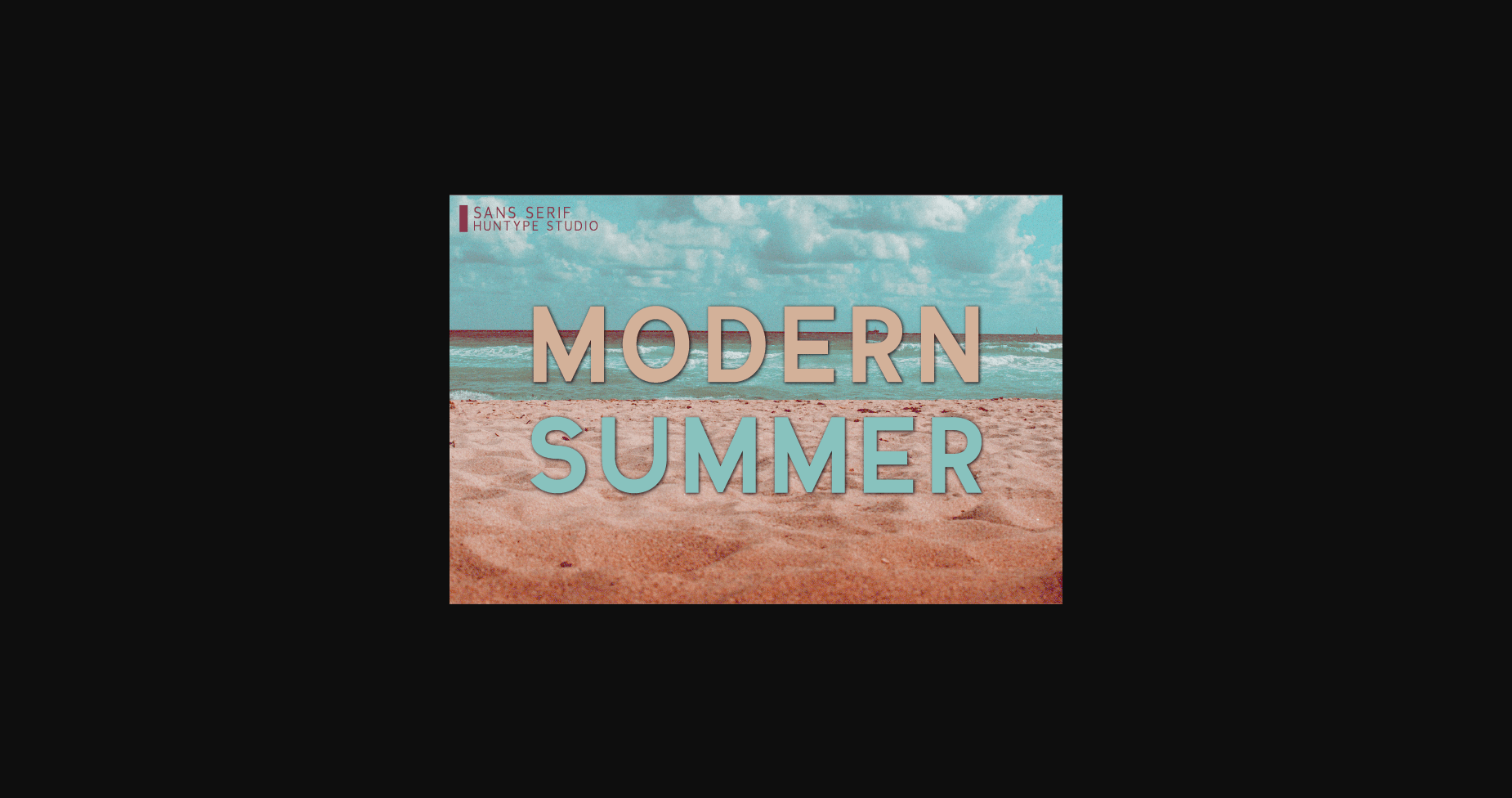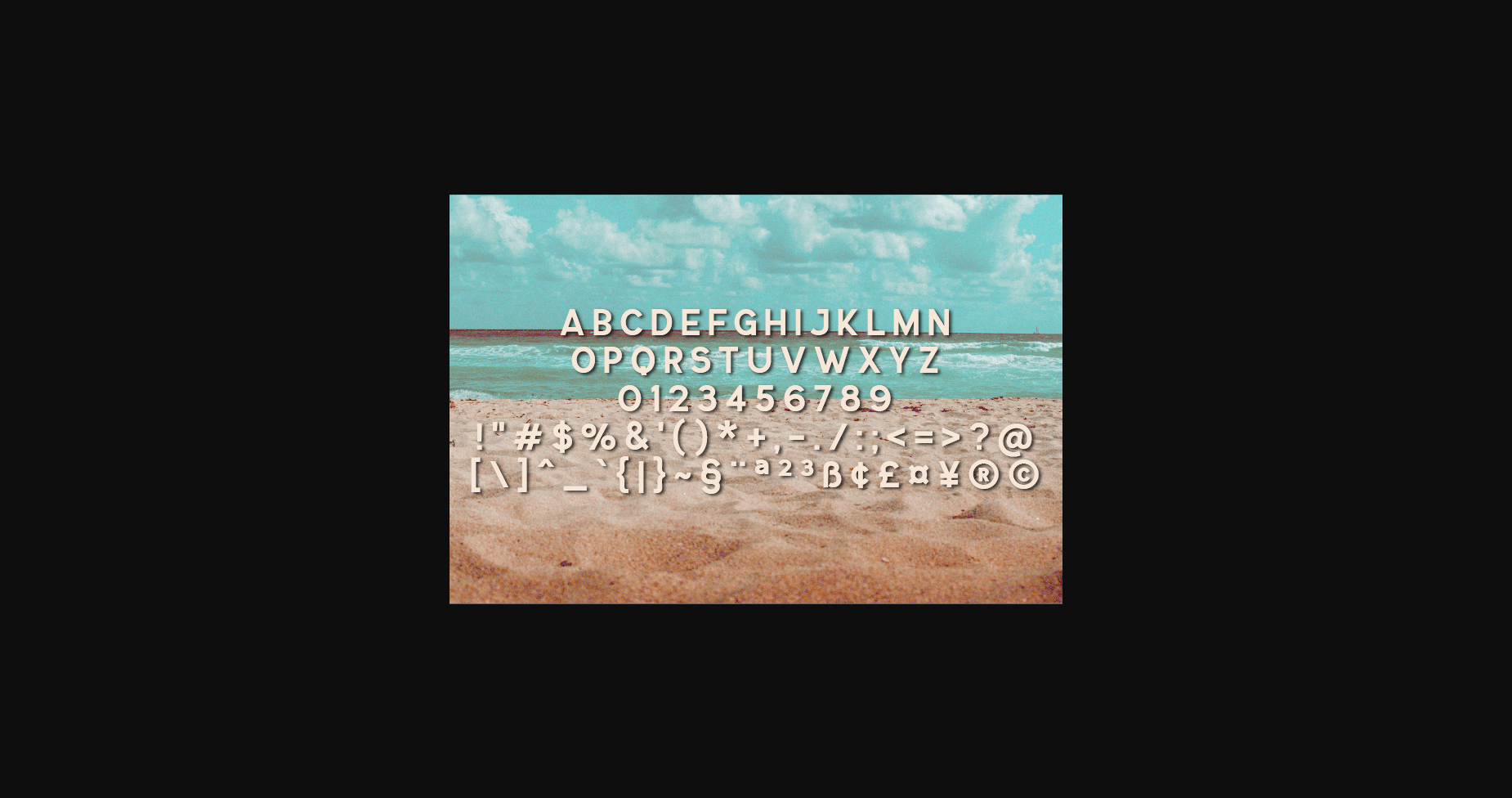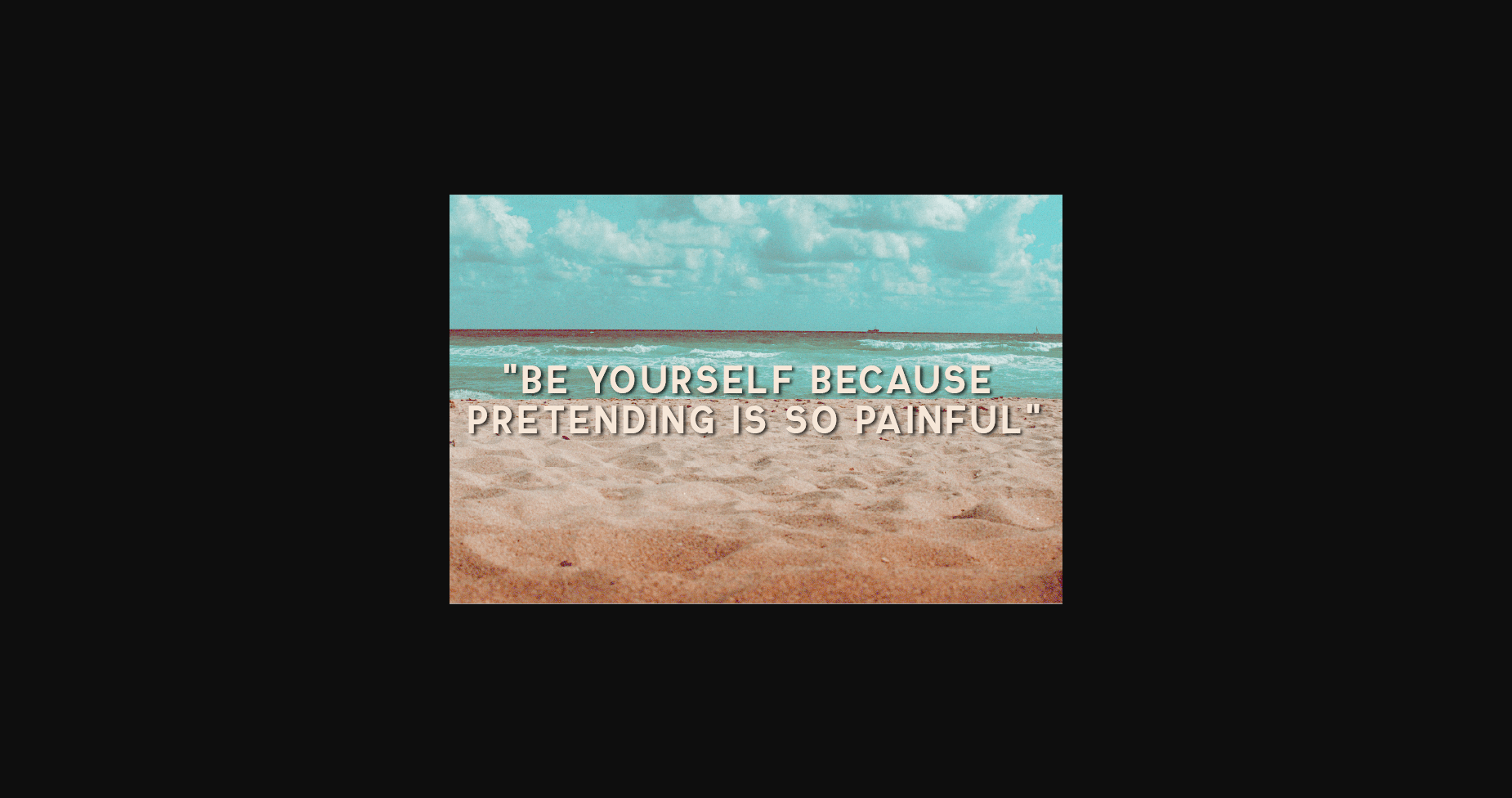
Modern Summer Font
About Modern Summer Font
Modern Summer – this all caps sans serif is so versatile and looks great in just about any context. With smooth and clean lines and just a touch of contrast, Versailles works beautifully for logos, branding, and web headings.